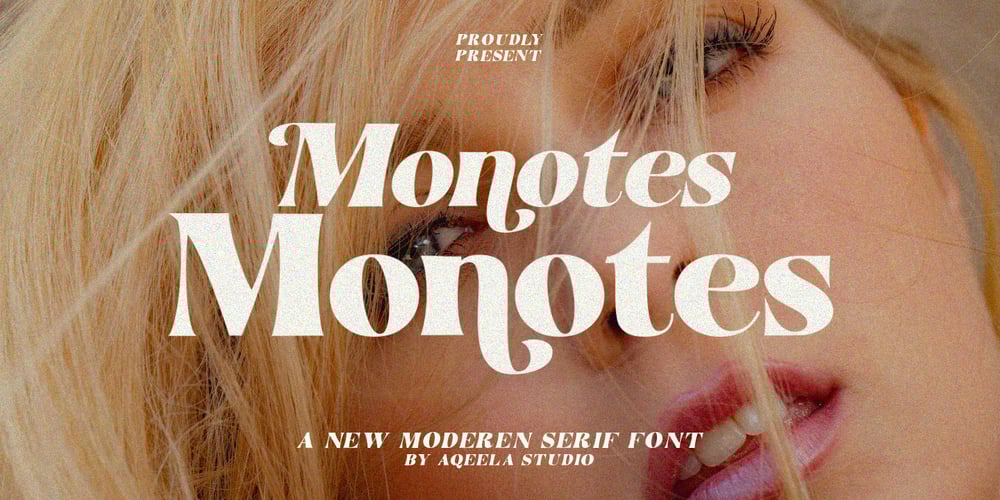
Monotes Font Family was designed by Muhammad Nasir and published by Aqeela Studio. Monotes contains 2 styles and family package options. Monotes is an upper and lower serif font with balanced curves. Like all of my fonts inspired by letters from the good old days, but still has a strong modern look. A variety of alternative styles allow for versatile design options and work perfectly for headlines, logos, posters, packaging, T-shirts, postcards and more.